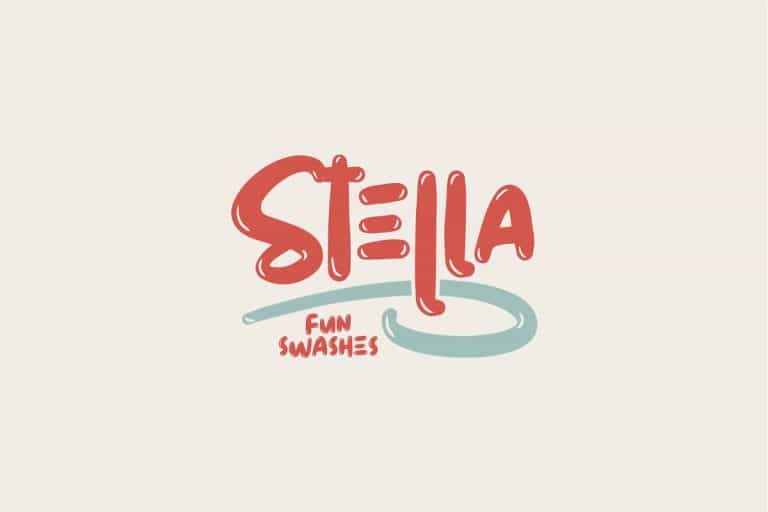
Here is Stella Bold Script Font. It is defined and provided by Good Java Studio. Stella is the child of bold and fun style fonts. Many different swashes are needed for the great work to be done. That is on other file from letter A-Z and a-z.